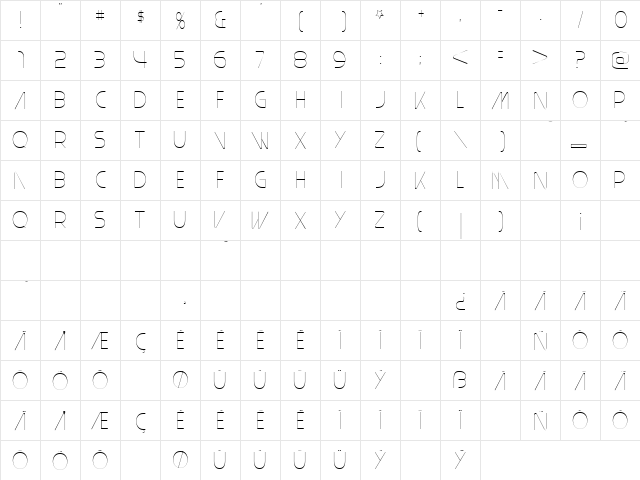
Plain Cred 1978 Regular
Design Context for Plain Cred 1978 Typeface
Plain Cred 1978 is a composed and adaptable typeface that performs quietly and consistently across a wide range of design contexts.